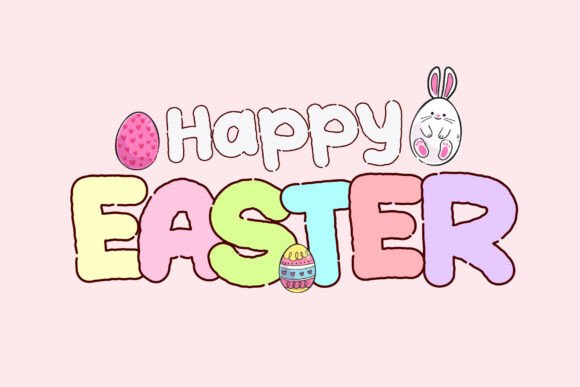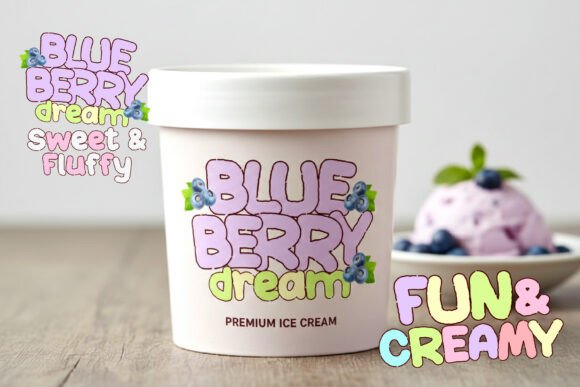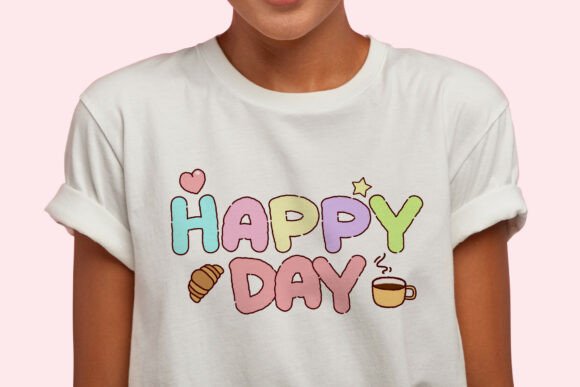
Introduction to Pastel Cloud Font
As a designer, you know that finding the perfect font can make all the difference in bringing your creative project to life. There’s nothing quite like the feeling of discovering a font that perfectly captures the essence of your vision. For many of us, that moment of discovery happens when we stumble upon a font that’s both unique and versatile – a font that can effortlessly adapt to any design concept, no matter how whimsical or crisp.
That’s exactly what the Pastel Cloud Font offers. This enchanting hand-drawn font is beautifully brushed in gentle hues of pastel colors, making it a valuable resource for any designer looking to add a touch of magic to their work. With seven soothing pastel color styles and a classic black version, Pastel Cloud Font is an all-in-one design resource that’s perfect for every occasion, event, and celebration.
Key Features of Pastel Cloud Font
- Unique, pastel-colored characters with a soft, cloud-inspired design, ideal for designs needing a subtle, ethereal feel.
- Each character is carefully crafted with a transparent background, allowing for easy layering and customization.
- Resolution-independent, ensuring crisp and clear text display at any size, making it perfect for large-scale designs.
Honest Review: Pastel Cloud Font
As a designer, I’m always on the lookout for unique and high-quality design resources to elevate my creative projects. The Pastel Cloud Font caught my eye with its soft, dreamy aesthetic and transparent background, making it perfect for adding a touch of whimsy to my designs.
- ✨ Unique and playful characters that are sure to add a creative twist to any project
- ✨ High quality design that looks great on a variety of backgrounds and in different sizes
- ⚠️ Limited character set, which may not be suitable for complex text-based projects
- ⚠️ Not ideal for designs that require a bold or dramatic font style
Overall, I’m impressed with the Pastel Cloud Font and would definitely recommend it for designers looking to add a touch of elegance and sophistication to their creative projects. While it may not be suitable for every project, it’s a great addition to any design resource library.
Pastel Cloud Font
The Pastel Cloud Font is a free design resource ideal for creating a unique and creative project. With its high-quality and transparent background, this font is perfect for adding a touch of softness to your designs.
The Pastel Cloud Font is commonly used in:
- Baby shower invitations and decorations
- Wedding stationery and decorations
- Branding and marketing materials for soft and feminine businesses
To get the most out of the Pastel Cloud Font, try combining it with other soft and pastel-colored design elements. Experiment with different font sizes and styles to create a unique and visually appealing design.